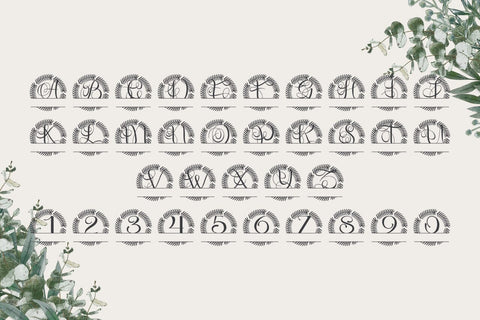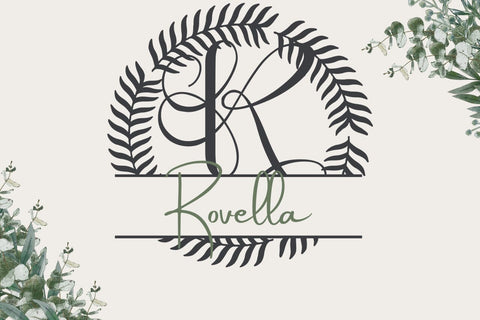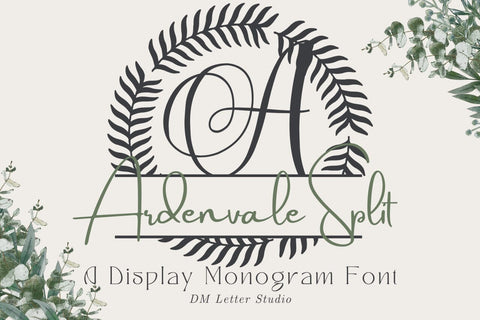
Ardenvale Split Monogram Font
Meet Ardenvale Split Monogram Font
Ardenvale Split Monogram Font turns initials into custom nameplates in seconds. Letters feel elegant and clear. The split panel leaves space for names, dates, or short words. Because the structure stays balanced, you get a polished look with very little effort. Use it for wedding gifts, family signs, door hangers, tumblers, and ornaments. Moreover, this Split Monogram Font pairs beautifully with simple sans and script fonts, so your layouts stay refined and readable.
Where this Split Monogram Font shines
Set single initials with a name inside the split. For example, try family names, couple names, or short phrases like “Home” and “Welcome.” Then add frames, florals, or simple borders around the design. Since spacing is tuned for clarity, you can size it for wall art, tags, or small keychains. As a result, this Split Monogram Font works perfectly for Cricut, Glowforge, and laser or vinyl projects.
Fast setup, polished results
Design tips for the Split Monogram Font
Keep the main initial large, and let the split line sit at the center or just below. Then choose a simple secondary font for the name inside the split. Meanwhile, try soft palettes like champagne and charcoal, or bolder mixes like navy and gold. Because Ardenvale Split Monogram Font is clean, it pairs well with wood textures, frosted glass, and matte tumblers. However, keep text inside the split short, so everything stays readable at small sizes.
Uppercase alphabet suited for split monograms
Matching lowercase, numbers, punctuation
Curves tuned for engraving, foil, laser cutting, and vinyl
Why creators choose this Split Monogram Font
You want fast personalization that still looks high-end. This Split Monogram Font delivers. It helps you create custom gifts, signs, and wedding pieces in minutes. Also, it keeps your shop style consistent across many product types. Consequently, Ardenvale Split Monogram Font becomes a go-to for makers who sell names and initials every day.